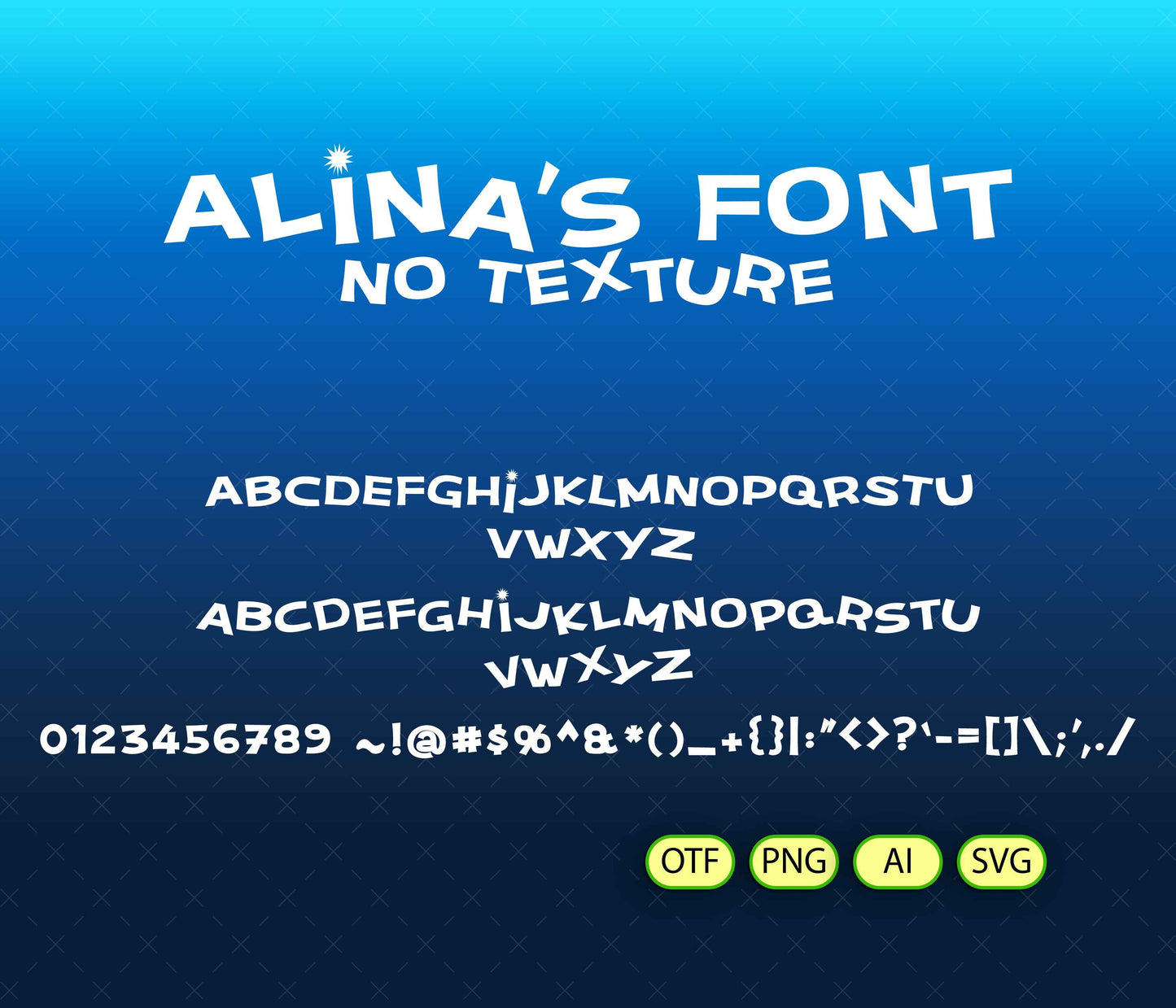
Adventure Friends Font
Step into the dynamic world of animal duos with our specially designed font, capturing the essence of a plucky dragon and energetic shark! Perfect for content creators, animators, event organizers, and designers, this font brings the playful, adventurous spirit of unlikely friendships to your projects. Create event invitations, themed merchandise, or digital content with the fun-filled energy of ocean meets sky adventures.
Our Adventure Friends font features bouncy, dynamic lines and playful characters reflecting the fun nature of unexpected friendships. Ideal for:
- Event Promotions: Cheerful invites, posters, banners for kids' shows, animation events, family celebrations.
- Merchandise Design: T-shirts, posters, accessories capturing the essence of friendship adventures.
- Digital Media: Enhance websites, blogs, social media with playful headers and graphics.
- Children's Content: Authentic flair for storybooks, animated projects, kid's entertainment.
- Personal Projects: Fun and adventure for scrapbooking, DIY crafts, home decor inspired by unlikely friendships.
Our font pays tribute to animated friendship adventures, empowering your designs with its playful and energetic spirit. Whether crafting promotional materials, designing merchandise, or adding a whimsical touch to personal projects, this font communicates the joyful essence of unexpected friendships. Ready to inject animated fun into your creations? This font is your key to adventurous, impactful design.